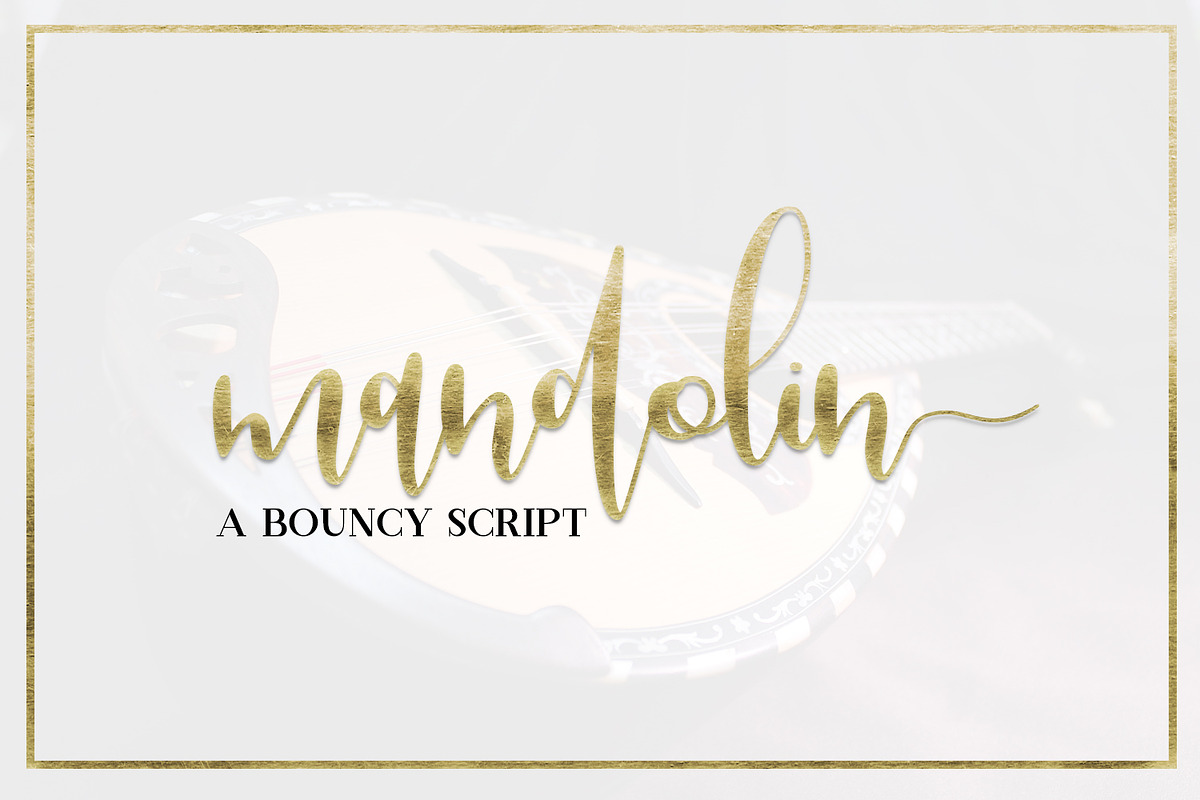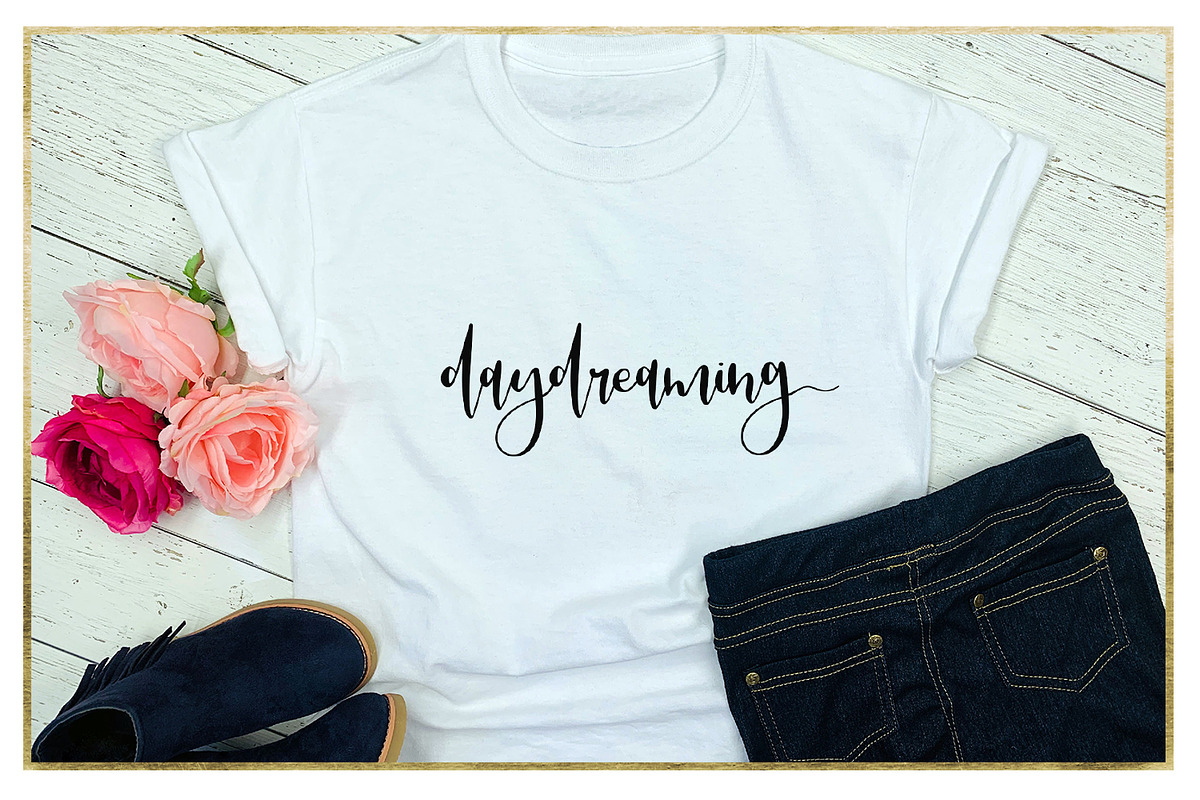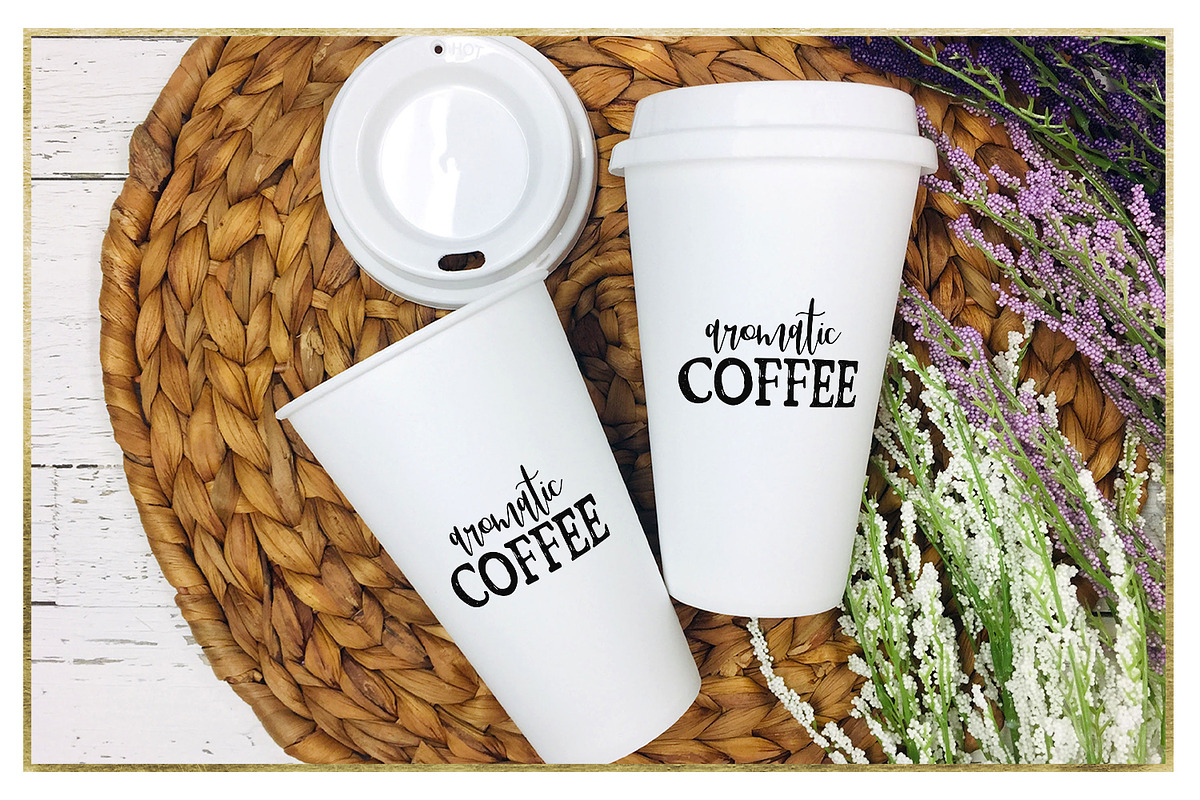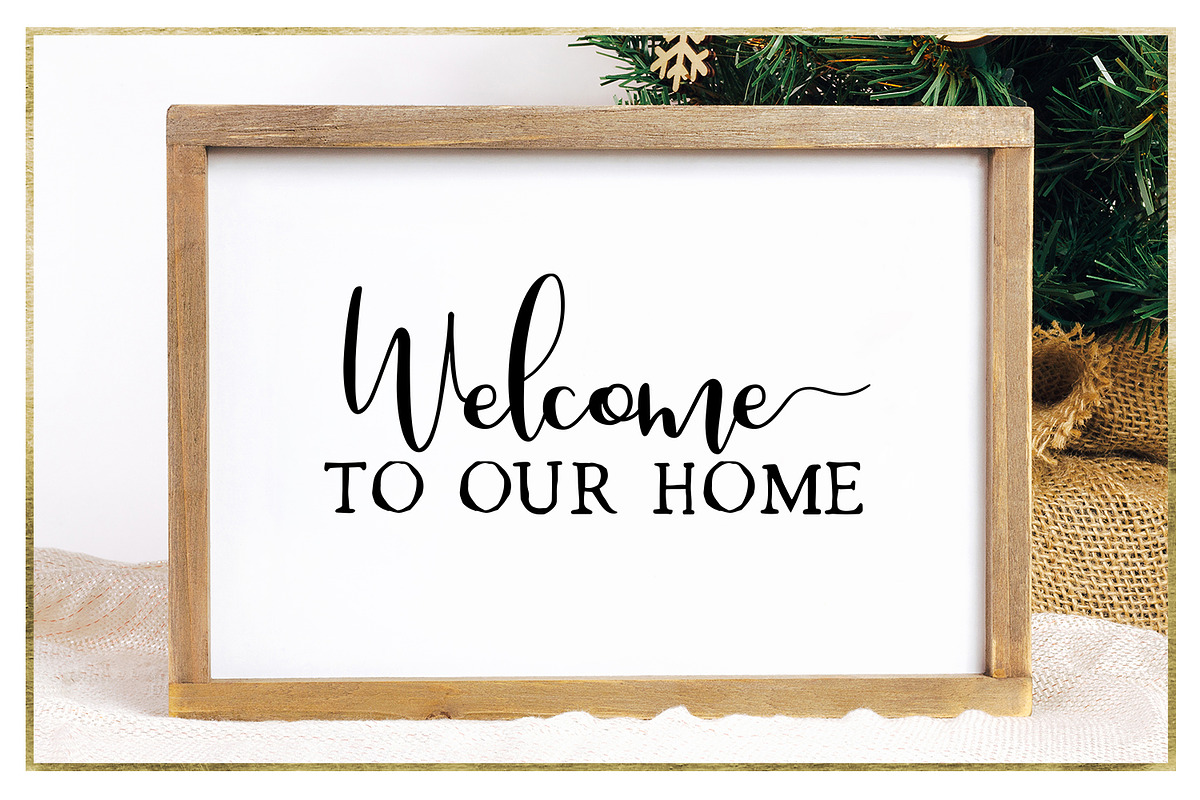
Mandolin - Bouncy Script
A bouncy modern script font perfect for home decor, apparel, invitations and so much more. Includes alternate lowercase glyphs with decorative swashes.